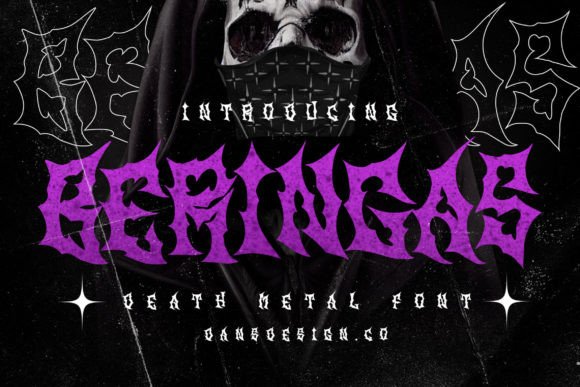
Embark on a journey to the dark and mysterious world of BERINGAS Modern Metal Horror Font. This lettering font, inspired by the gothic era, is a masterpiece of intricate details and fearsome aesthetics. Dive into the world of tattoos, where BERINGAS's sharp edges and ominous aura will leave an indelible mark on your designs.
Unleash your creativity and let BERINGAS's unique style captivate your audience. Its bold and striking characters are perfect for creating designs that exude a sense of intrigue and danger. Whether you're a tattoo artist, graphic designer, or simply a lover of the macabre, BERINGAS is the perfect font to add an edge to your projects.
Step into the shadows with BERINGAS and let your imagination run wild. Its versatility knows no bounds, from creating haunting posters and album covers to designing logos that evoke a sense of mystery and power. BERINGAS is the key to unlocking your creative potential and leaving a lasting impression on those who encounter your work.
With BERINGAS, you're not just downloading a font; you're acquiring a gateway to a world of darkness, beauty, and limitless possibilities. Embrace the horror and let BERINGAS guide you to the forefront of design.